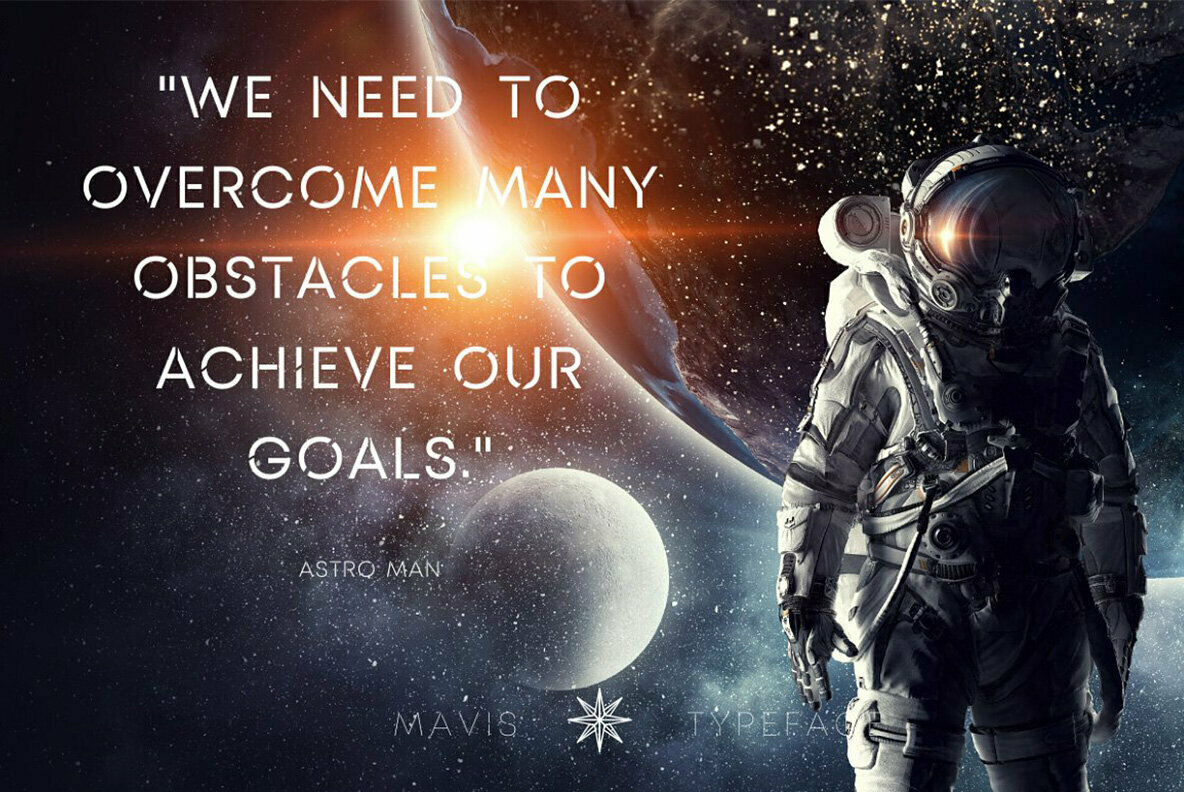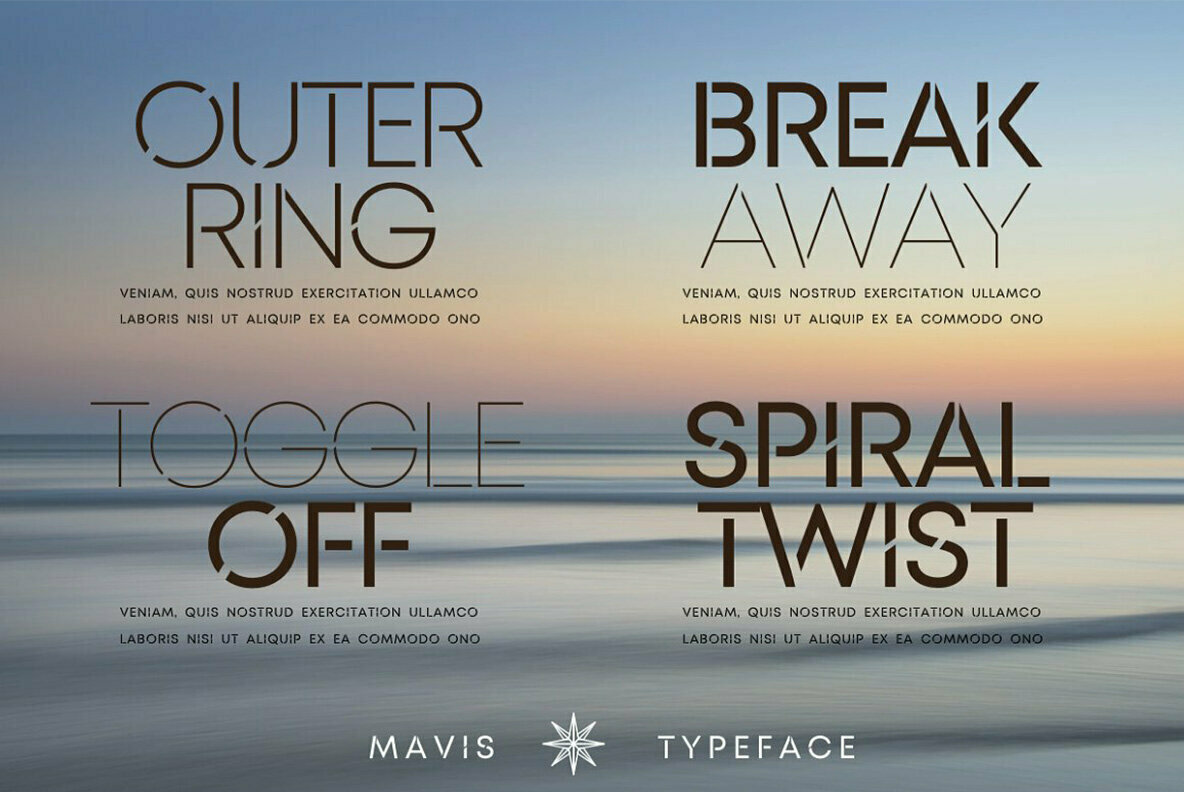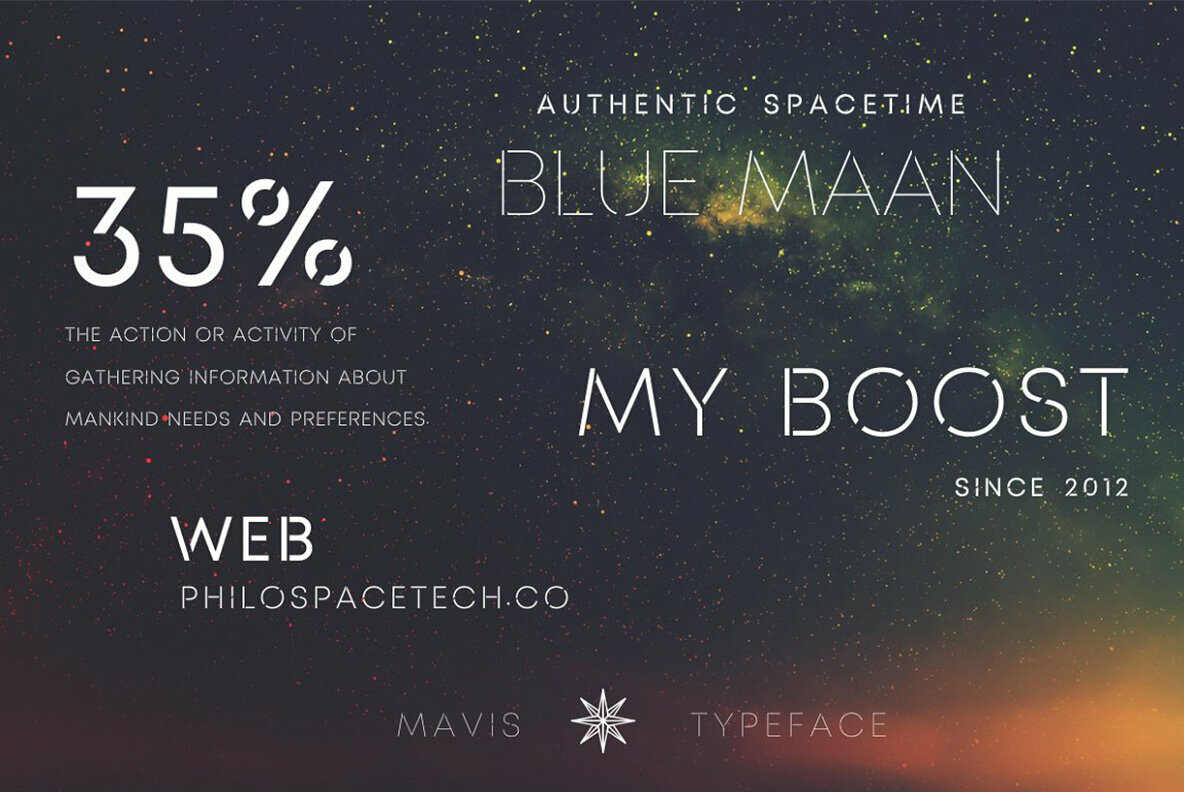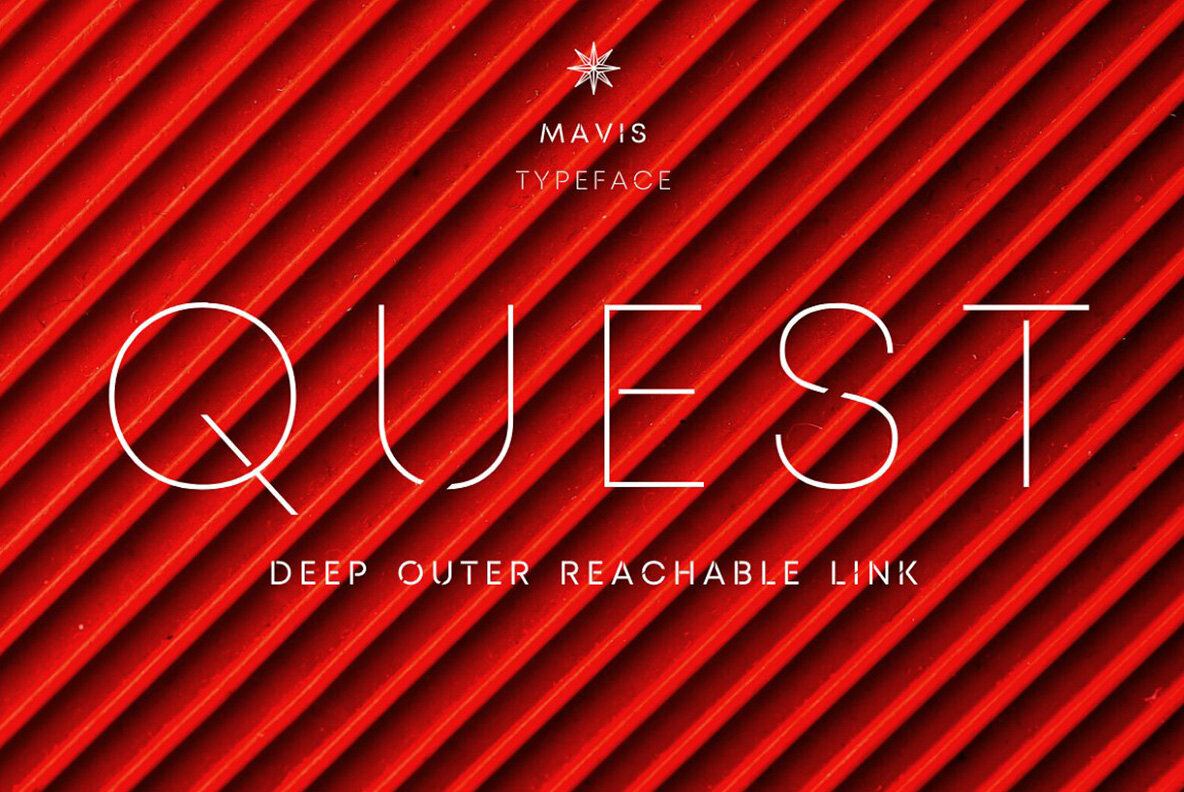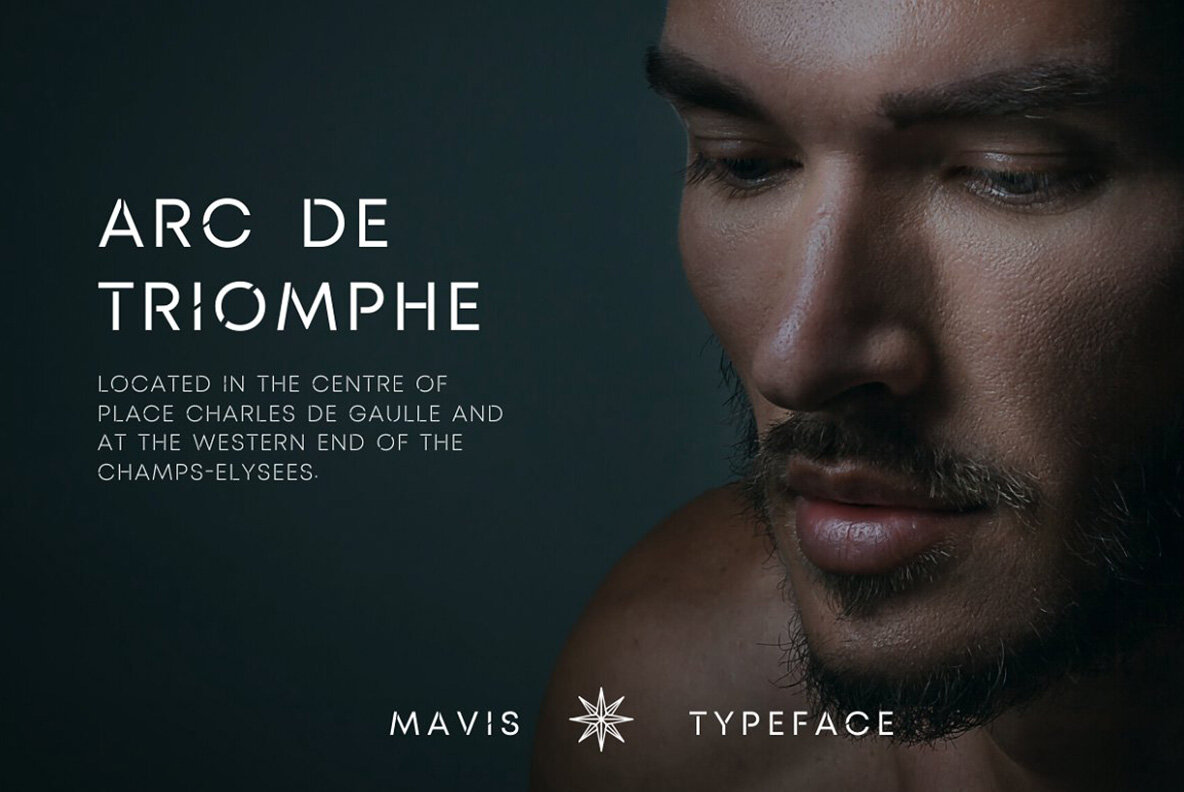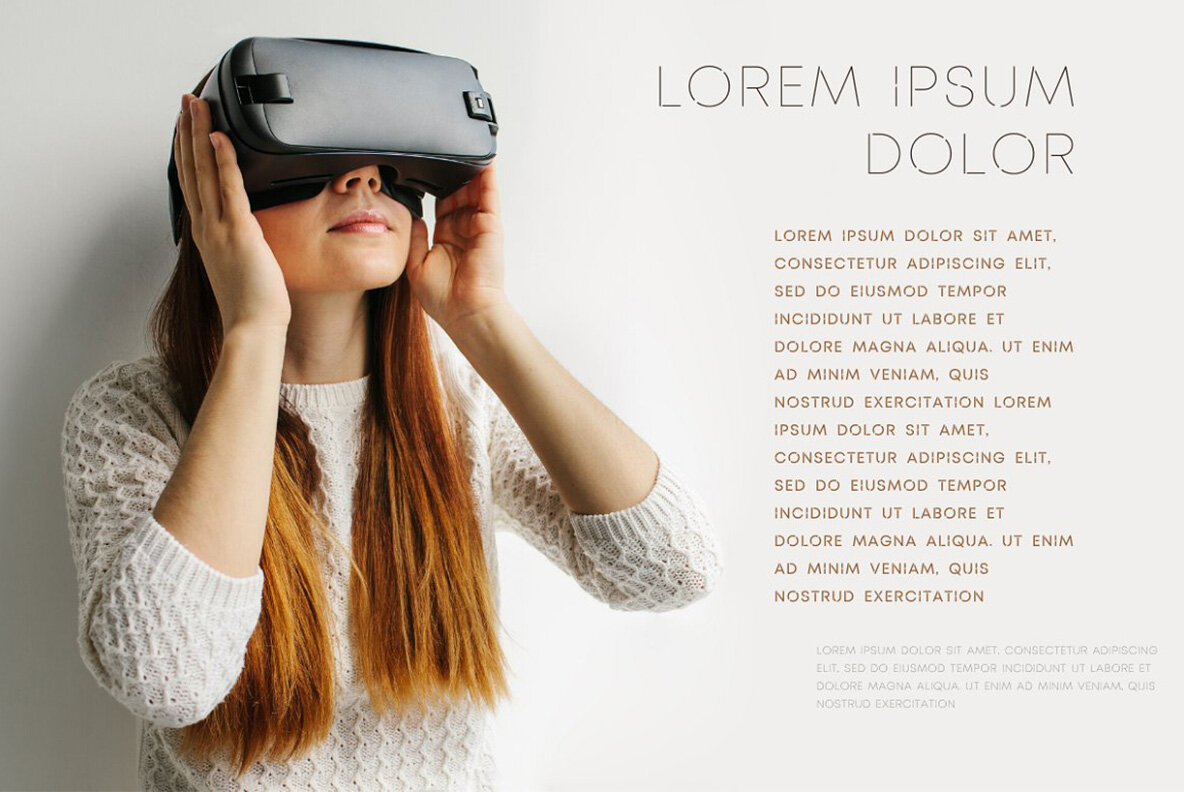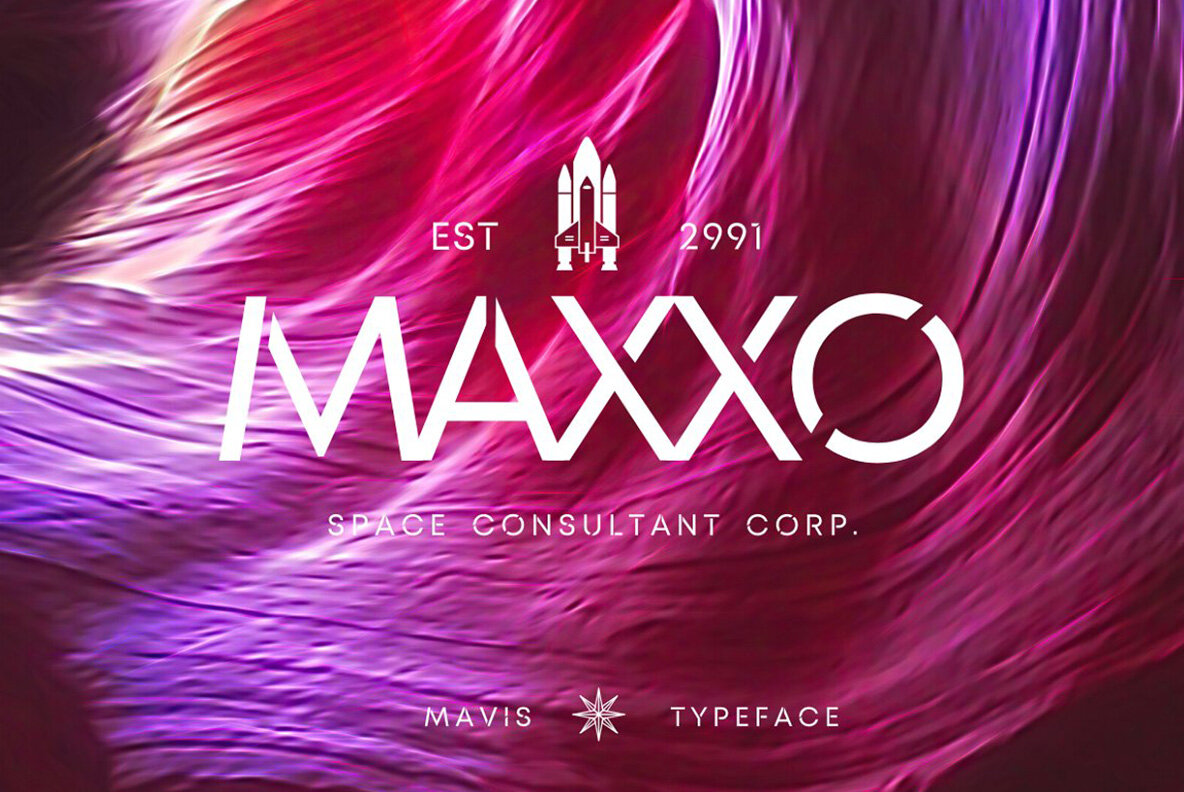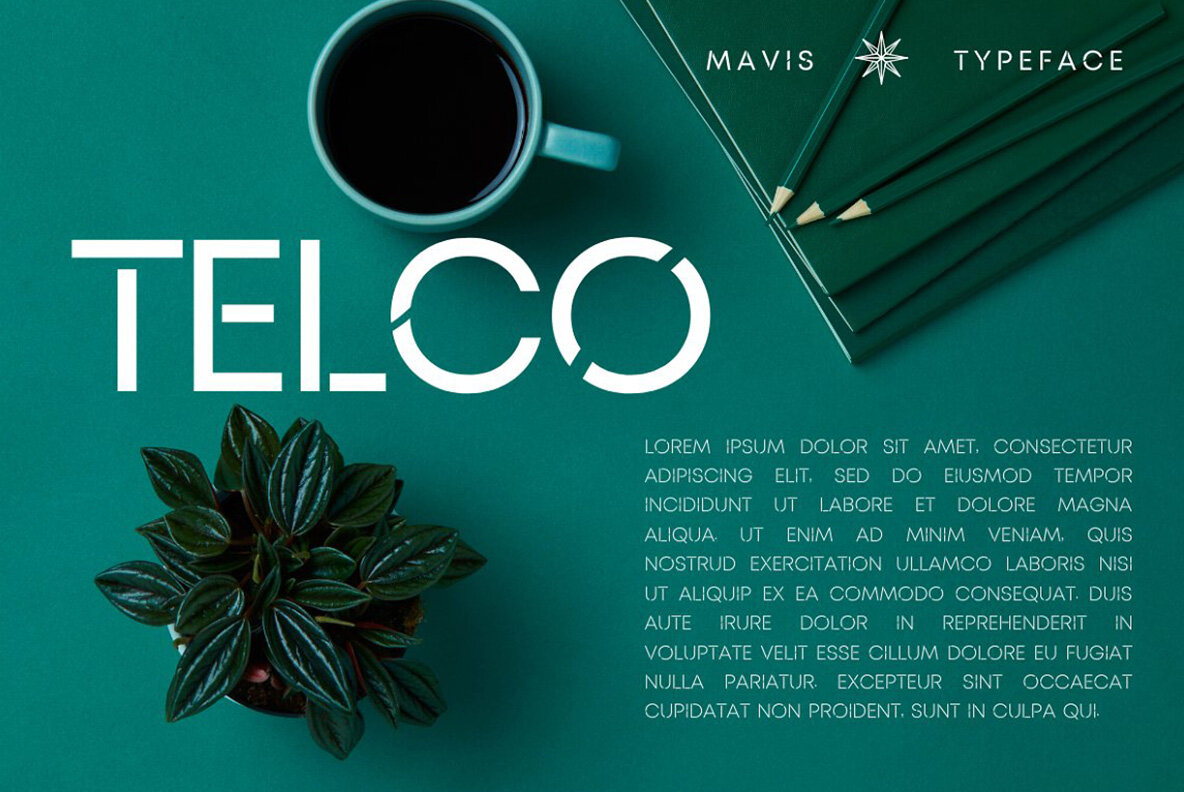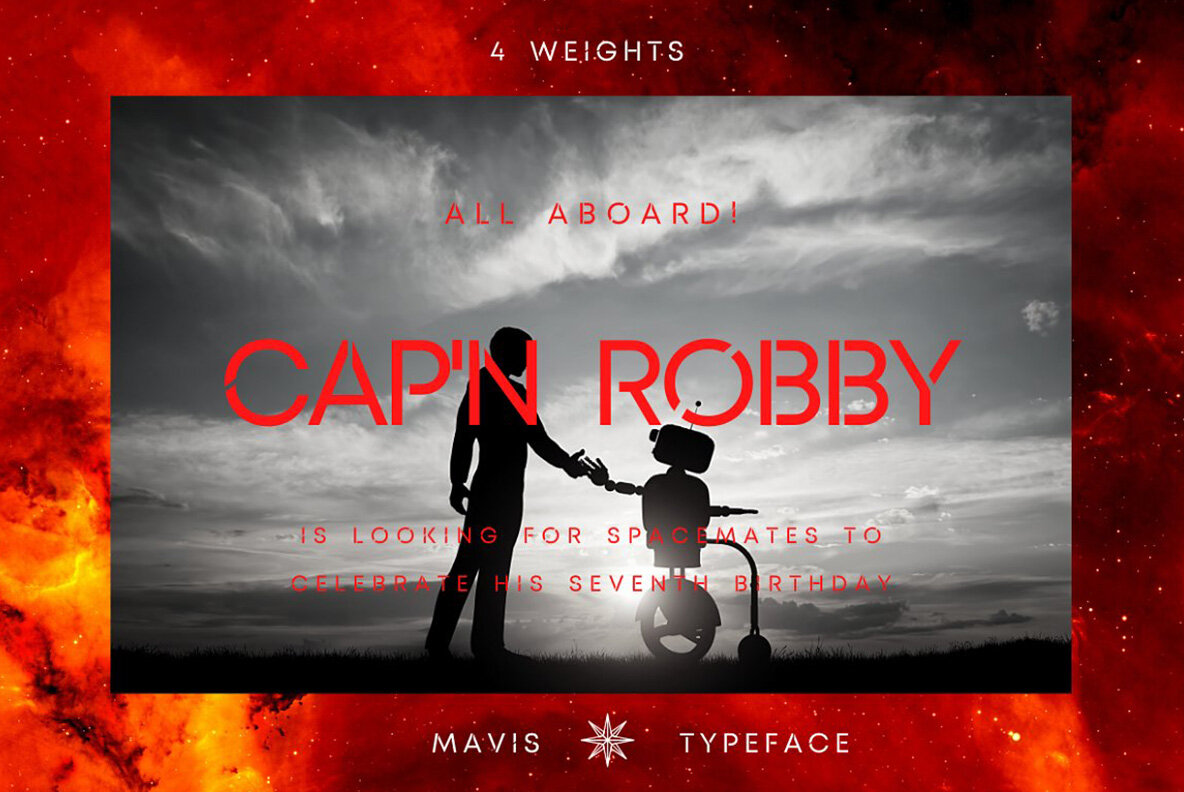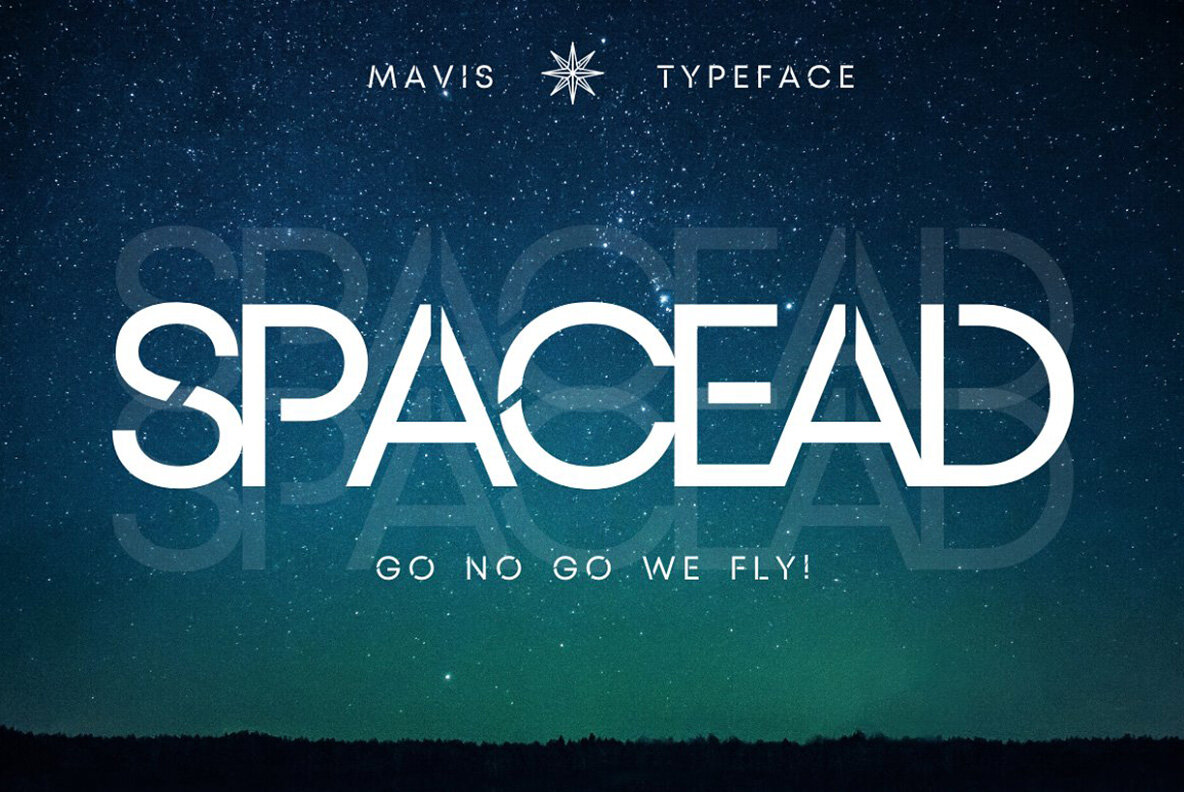
Mavis Sans Font
Mavis sans futuristic & space typeface.
Mavis is a futuristic, space & tech looking font family.
It’s thin and simple, but it’s strong and significant defined by its thin strokes and unique cuts. It is designed for optimal legibility. An all caps sans-serif, mavis makes a strong attention grabber for any occasions.